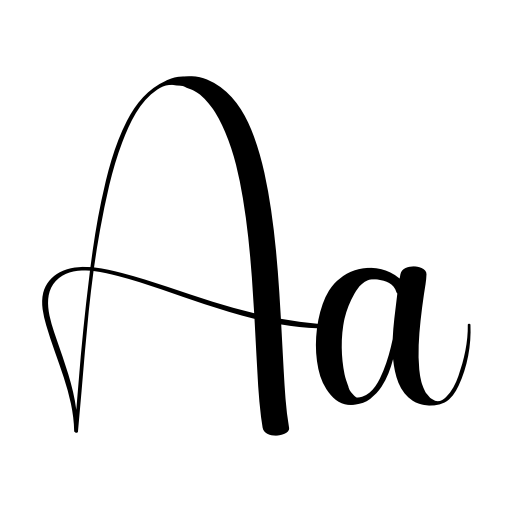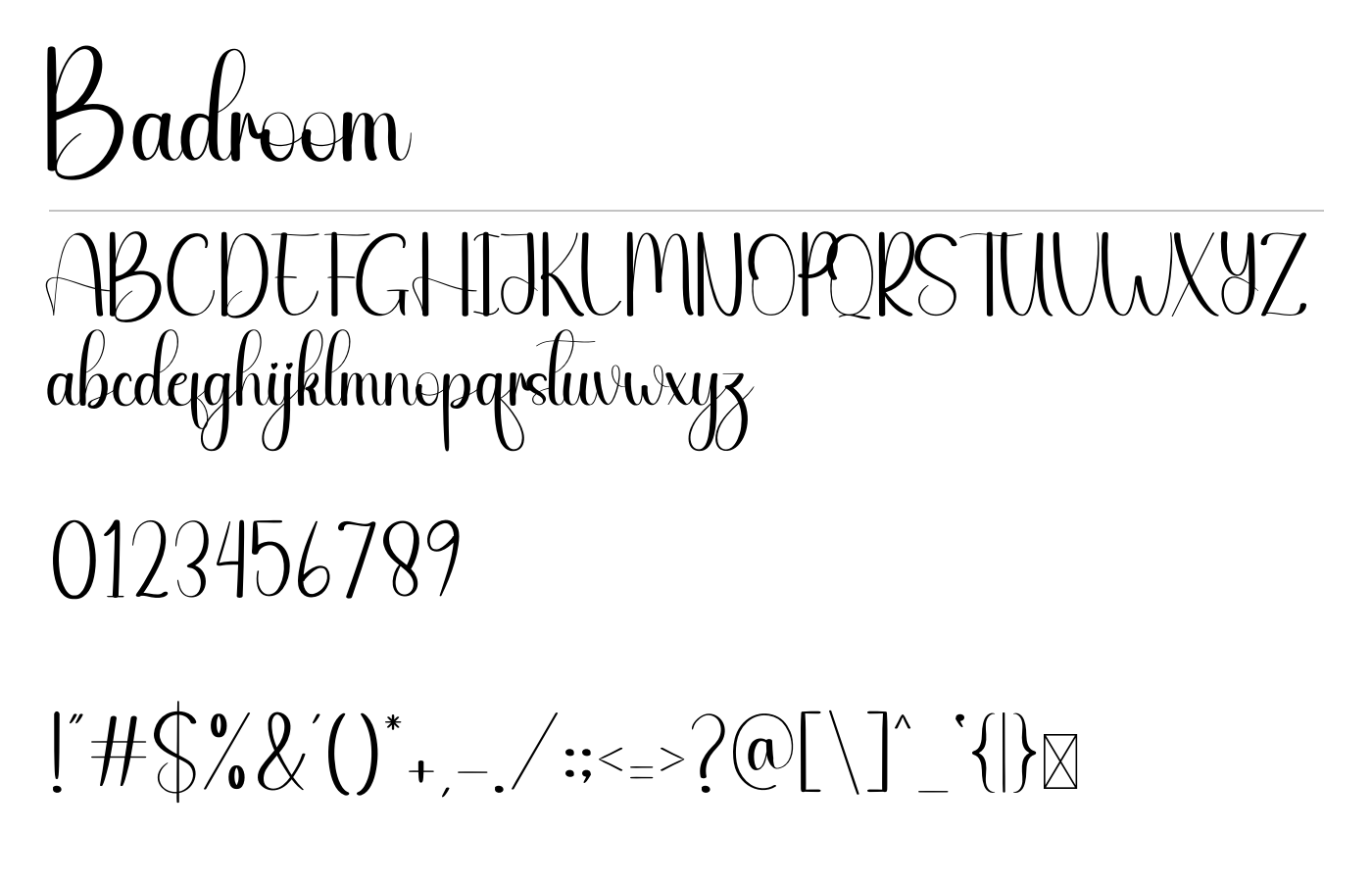
Badroom Font is a quirky, tall, and slender script with playful, flowing strokes that combine elegance and whimsy. Its delicate weight and tall x-height, along with unique letterforms and smooth curves, make it perfect for creative branding, invitations, and feminine or artistic design projects seeking a stylish and approachable feel.
Badroom Font
About Badroom Font